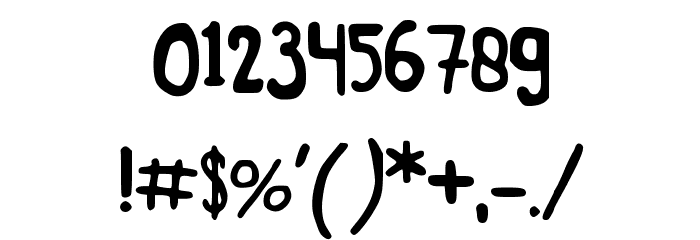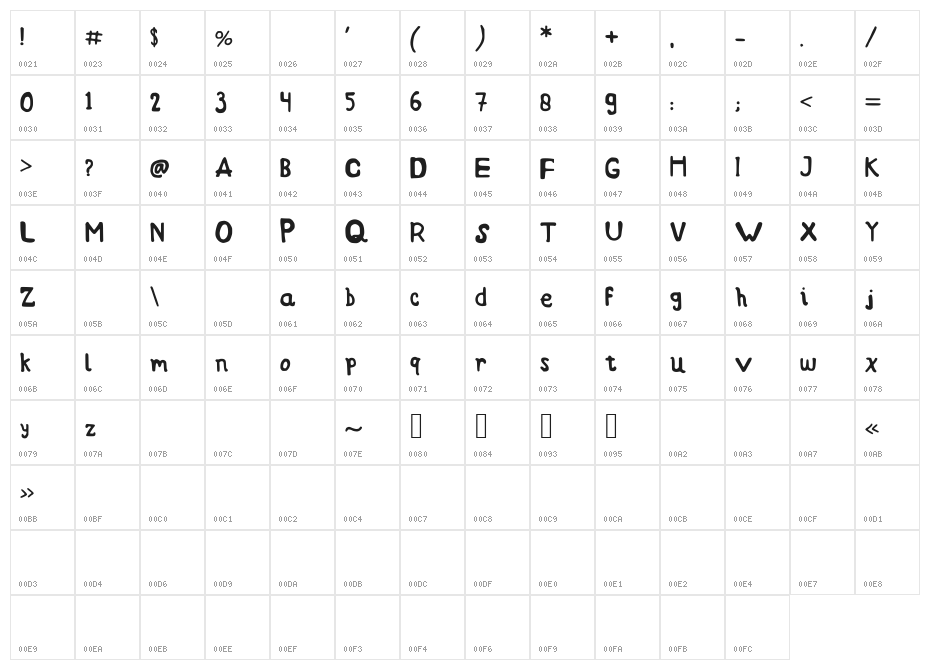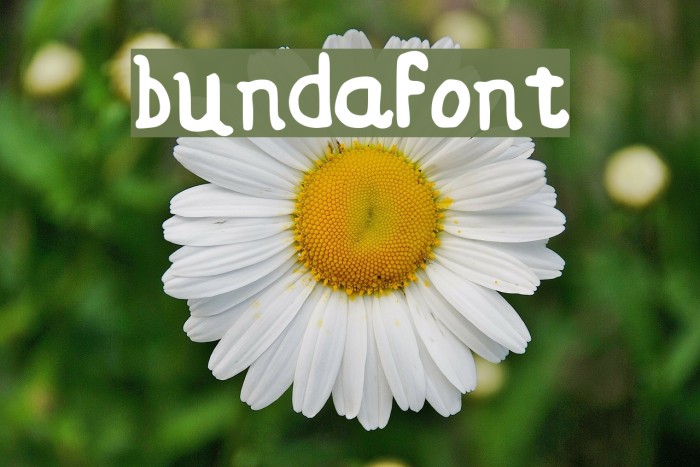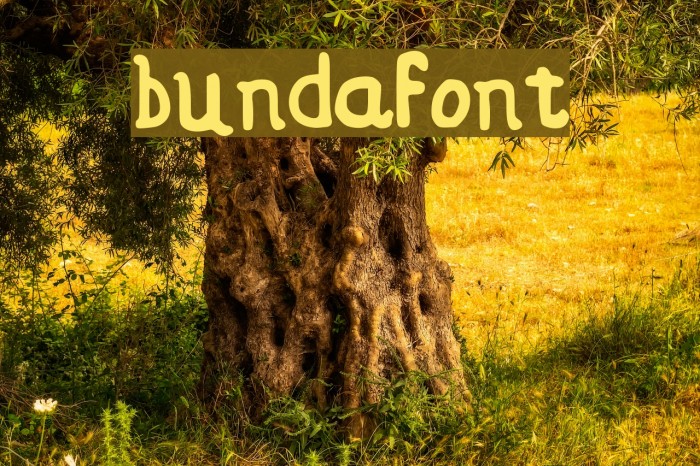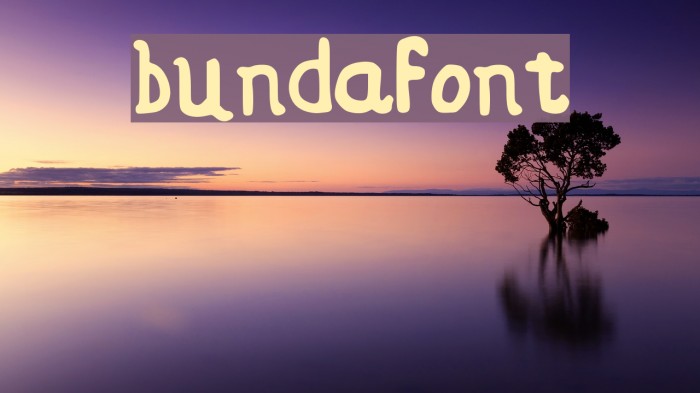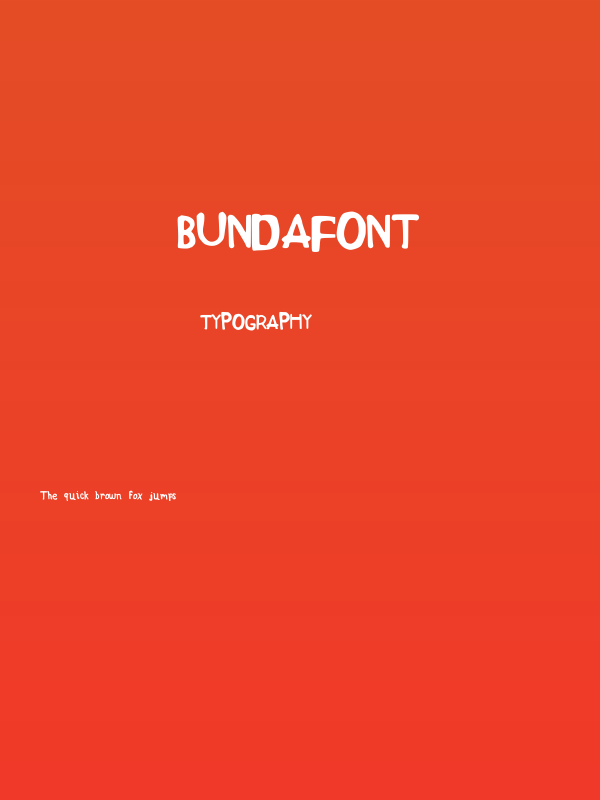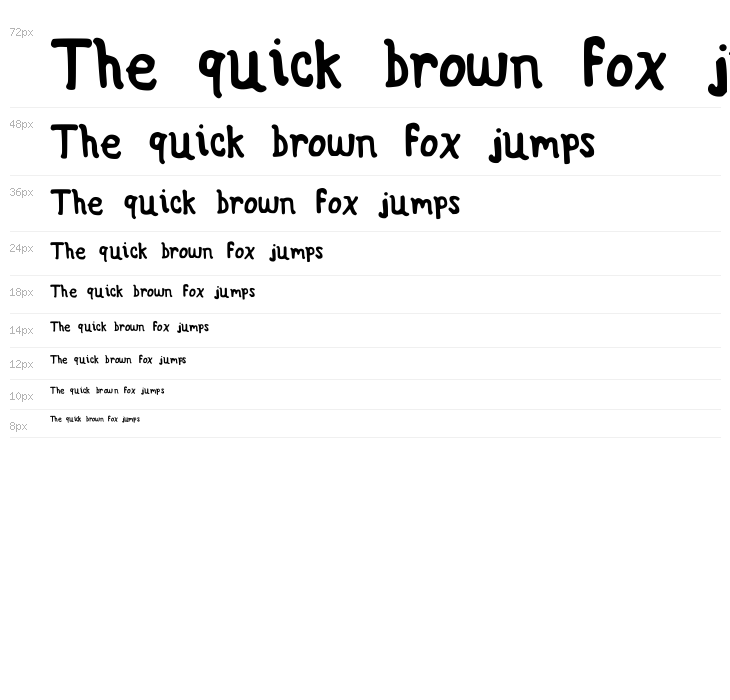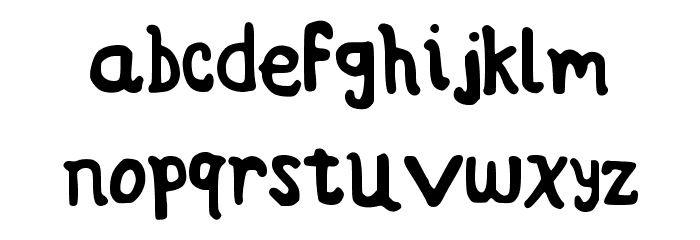
bundafont Font
bundafont Description
This font features a playful and bold style with rounded edges and a hand-drawn appearance. The characters are slightly irregular, giving it a whimsical and informal feel. The uppercase letters are bold and prominent, while the lowercase letters maintain a consistent style with a slightly smaller size. The numbers and special characters follow the same playful design, making the font suitable for creative and fun projects. Its unique style is eye-catching and adds a personal touch to any design.
A playful, bold, and hand-drawn style font with rounded edges from Uncategorized fonts.
- Proposed Projects: Ideal for children's books, playful branding, casual invitations, and creative posters.
- Overall Style: Playful